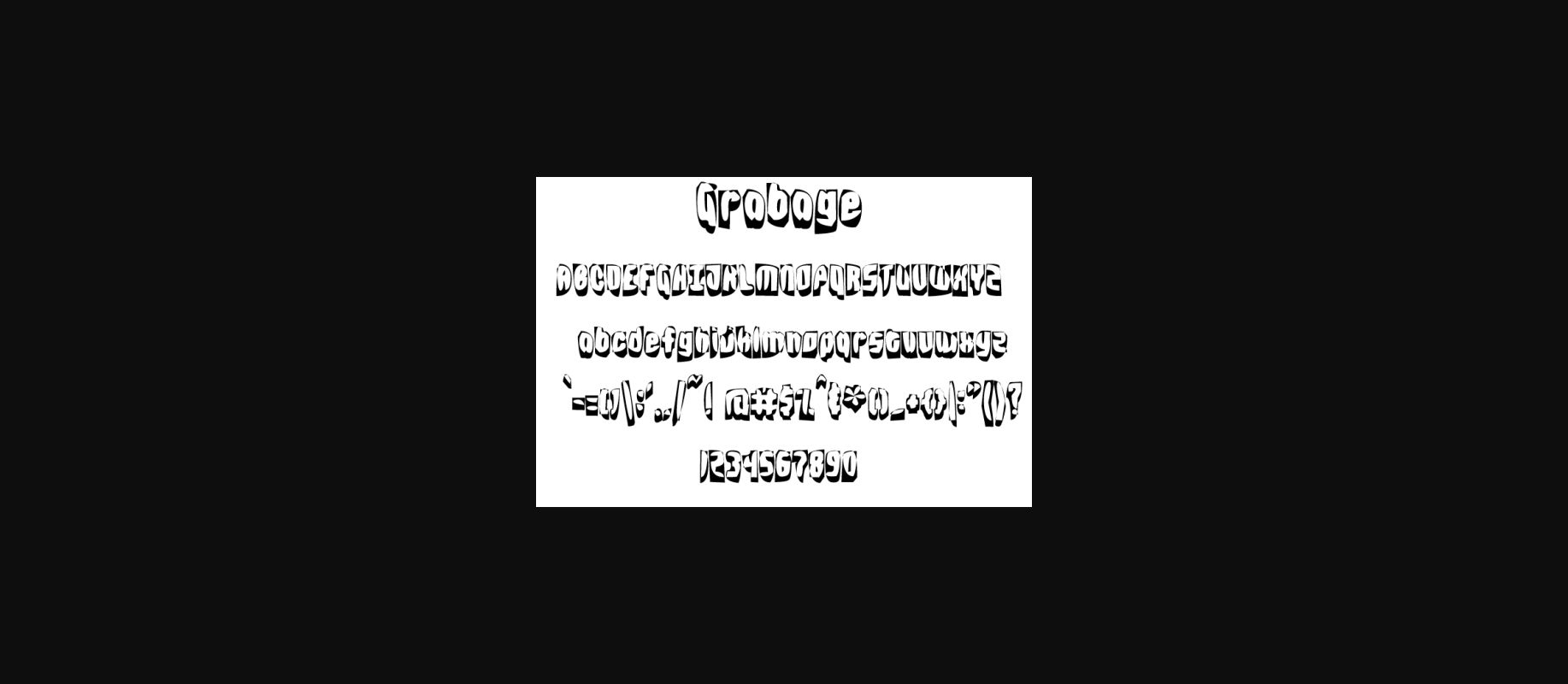
Grabage Font
About Grabage Font
Grabage is funny little decorative font, ideal for use in playful and relaxed projects. This is a cut-out, zine looking font that doesn’t take itself too seriously, so you can have fun incorporating it creatively into any type of work.